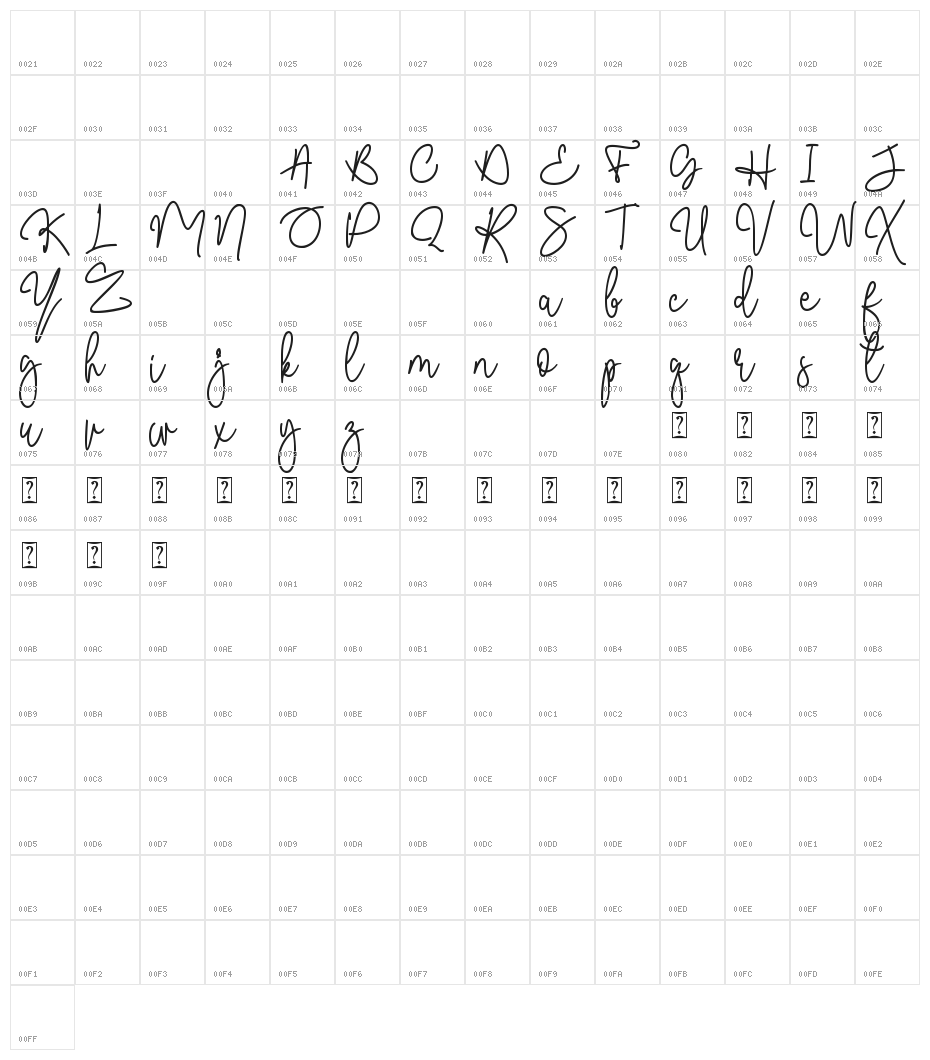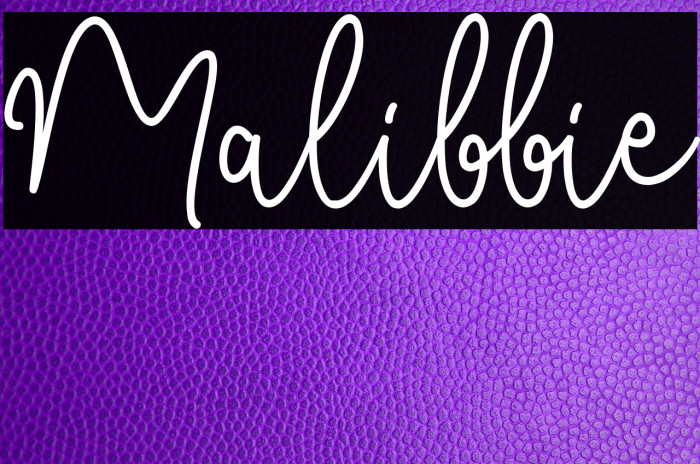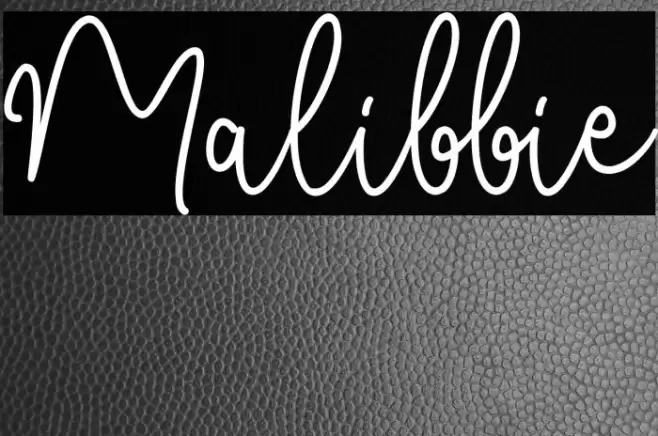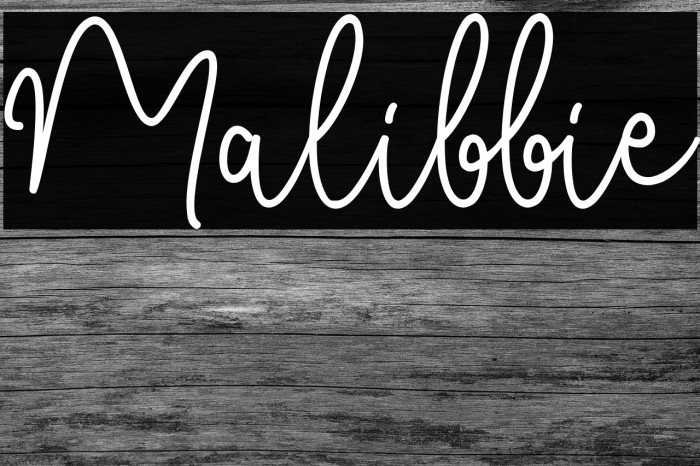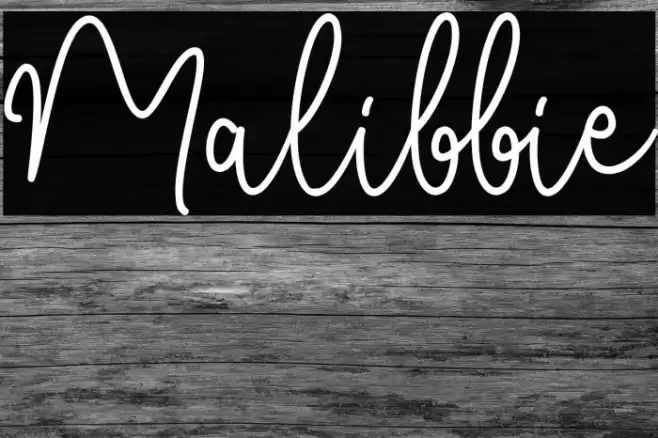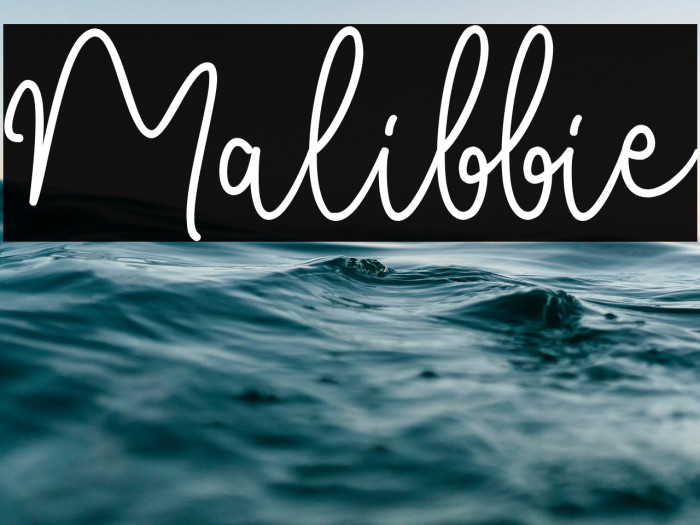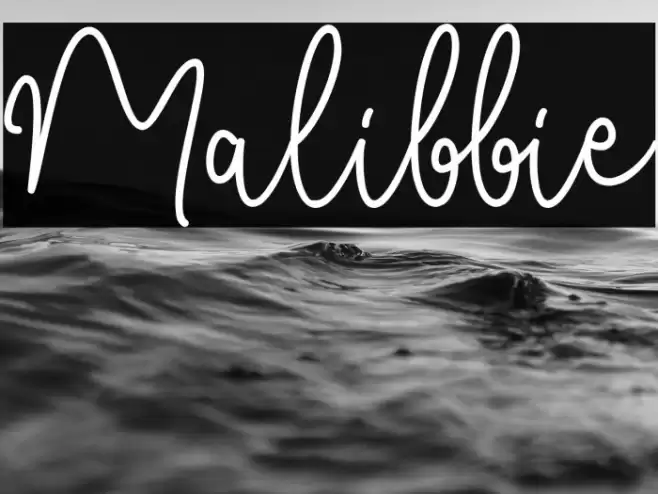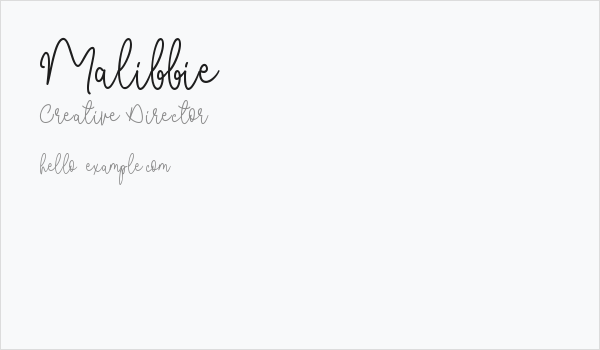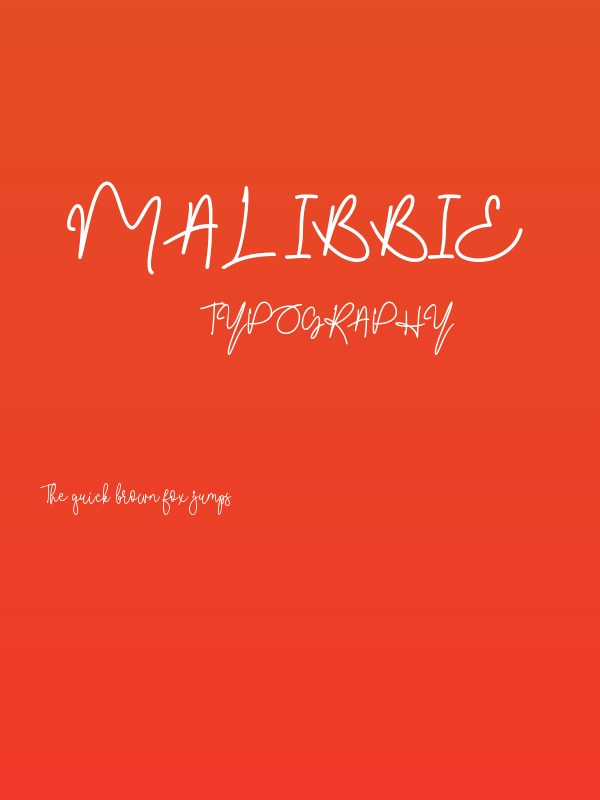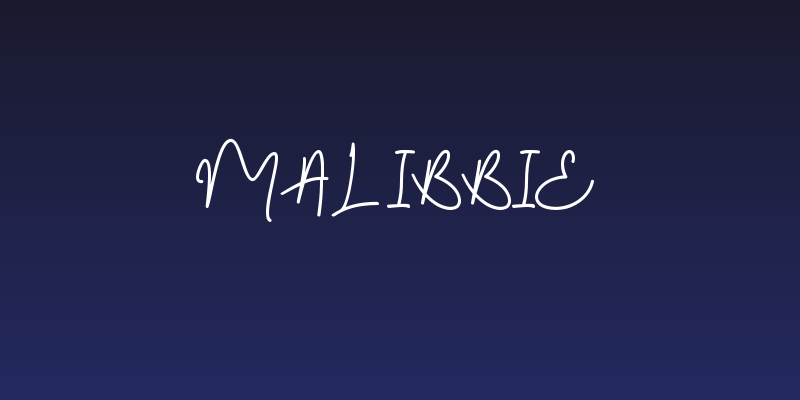
Malibbie Font
Malibbie Description
This font features a playful and whimsical script style with a handwritten appearance. The uppercase letters are elegantly looped and connected, giving a sense of fluidity and motion. The lowercase letters maintain a consistent flow, with some characters extending below the baseline, adding to the dynamic look. The numbers and special characters are crafted to match the overall style, ensuring cohesion across all elements. This font is perfect for projects that require a personal touch, such as invitations, greeting cards, or branding materials. Its unique style makes it stand out while remaining legible.